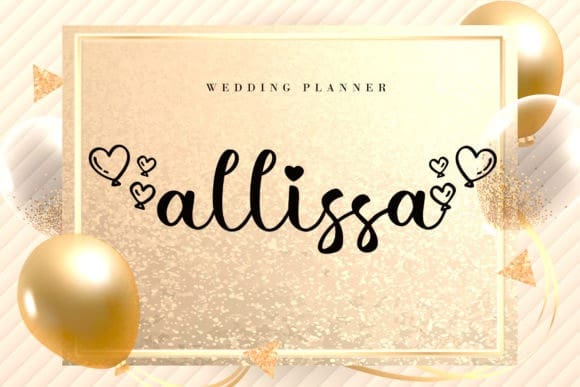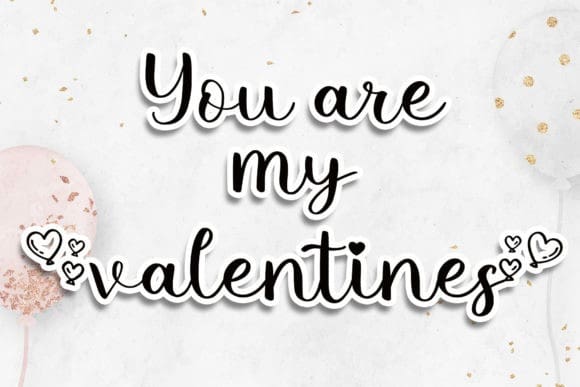
Lovely Balloon Font
Lovely Balloon Font is a romantic and sweet handwritten typeface with characters that dance along the baseline. It will add a luxury spark to any design project you wish to create!